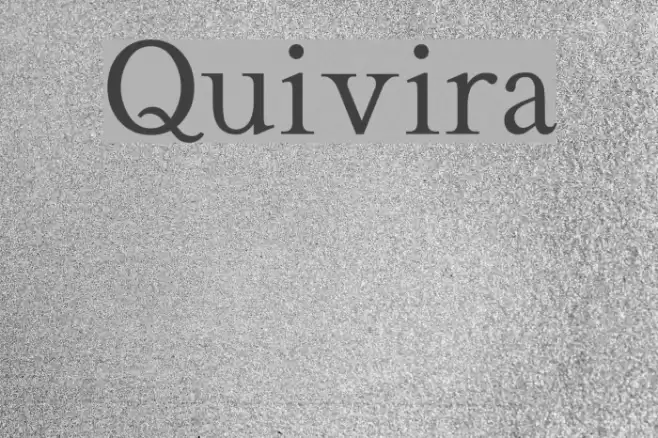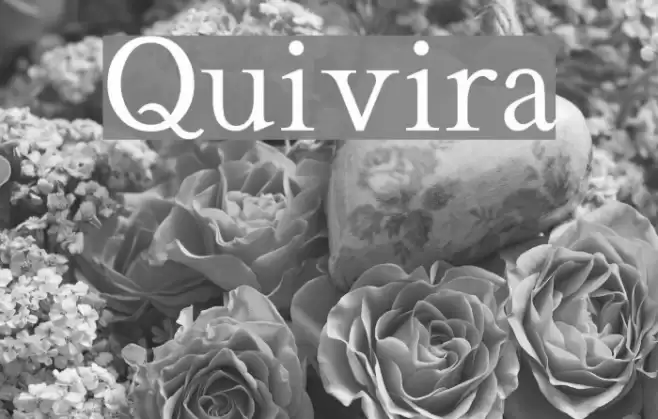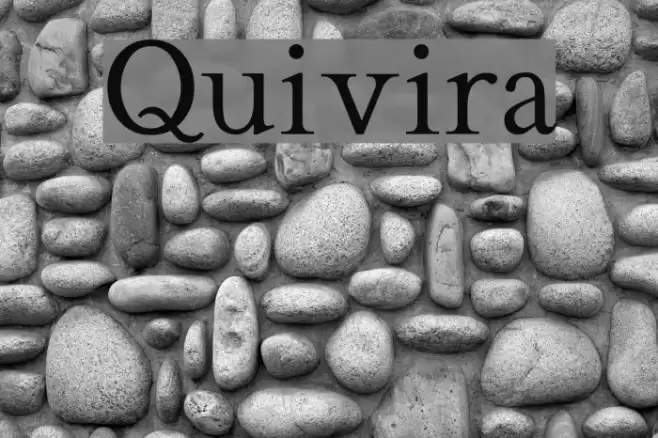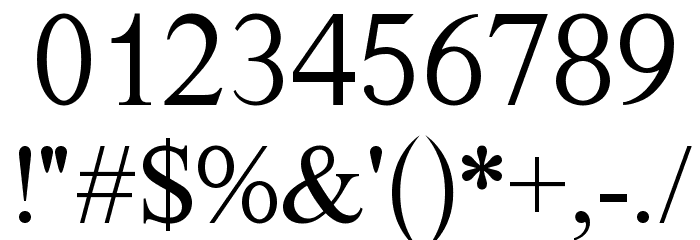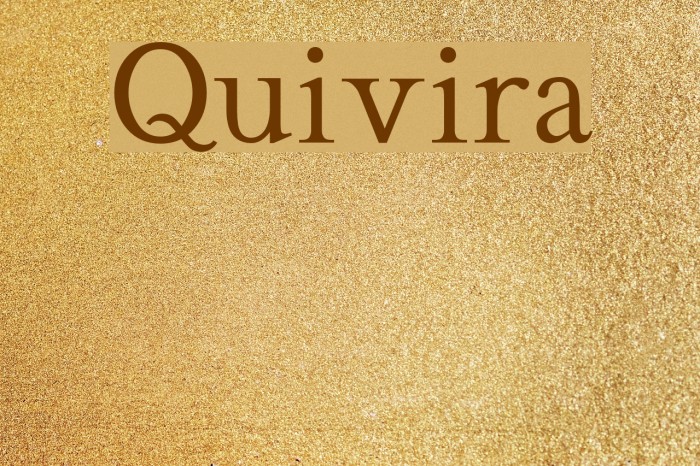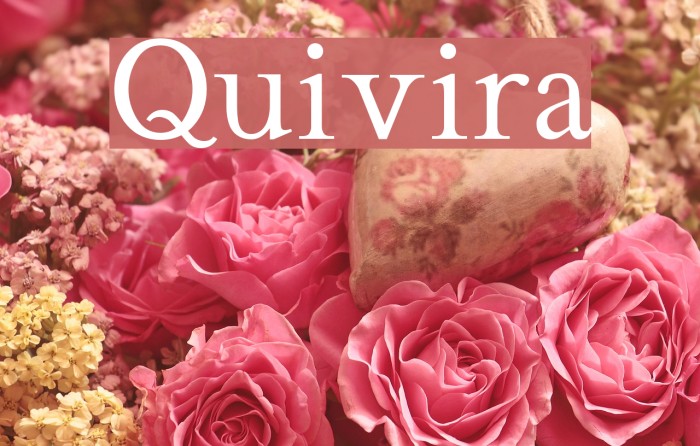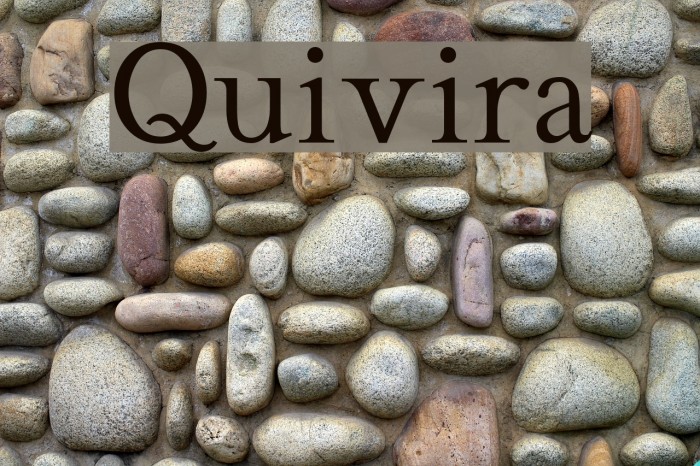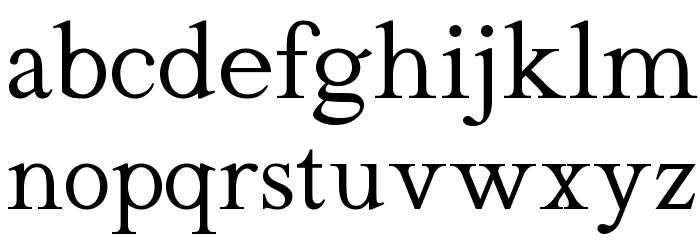
Quivira Font
Quivira Description
This typeface exhibits a classic serif design with a balanced and elegant appearance. The uppercase letters are bold and commanding, while the lowercase letters maintain a graceful flow. The numerals are clear and distinct, ensuring readability. Special characters are well-integrated, maintaining the font's cohesive style. The strokes are consistent, with moderate contrast that enhances legibility without overwhelming the design. This font's timeless appeal makes it suitable for a variety of applications, from formal documents to creative projects.
A classic serif typeface with balanced elegance and moderate contrast from Uncategorized fonts.
- Proposed Projects: Ideal for book publishing, formal invitations, branding materials, and editorial design.
- Overall Style: Classic
- Use Case: Body text, Headlines, Editorial design